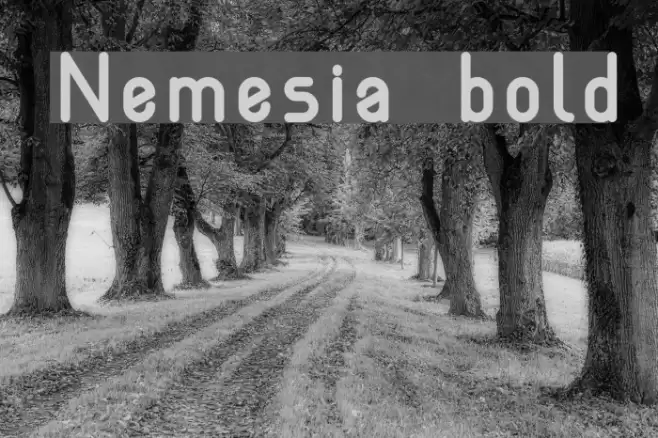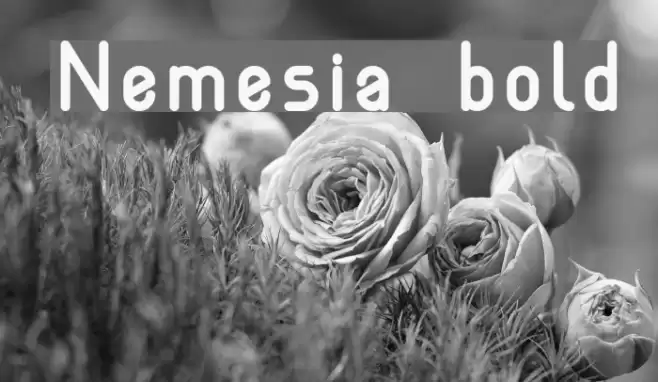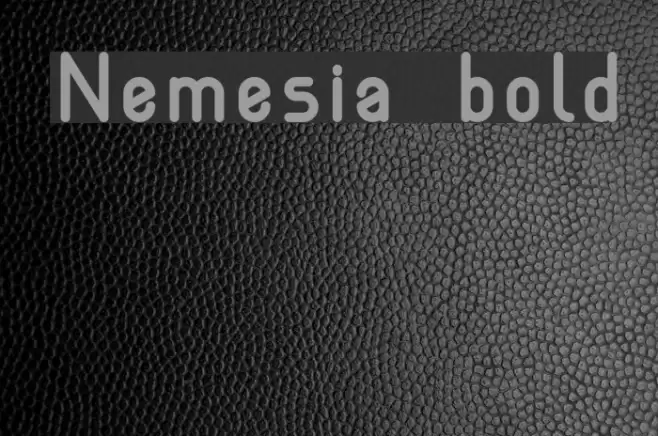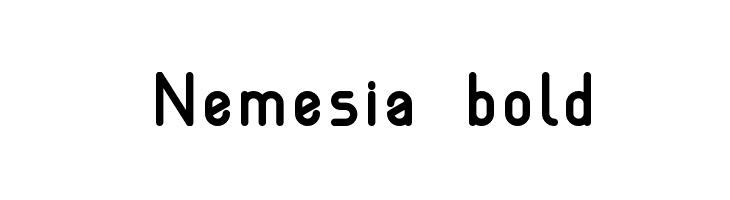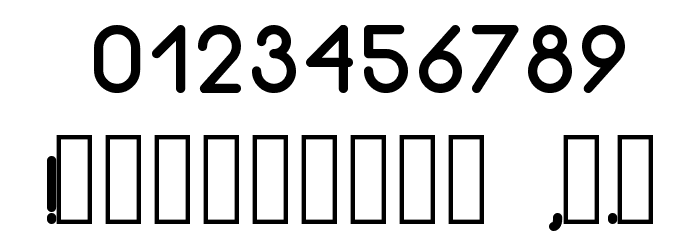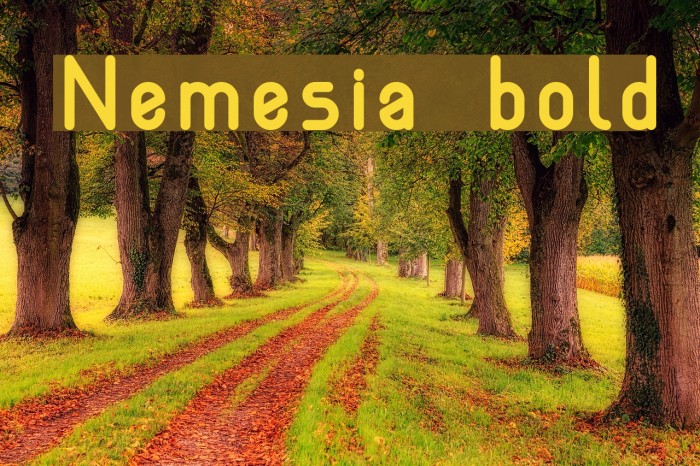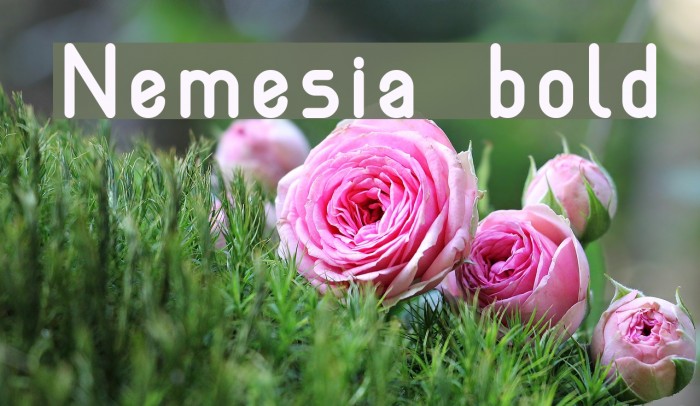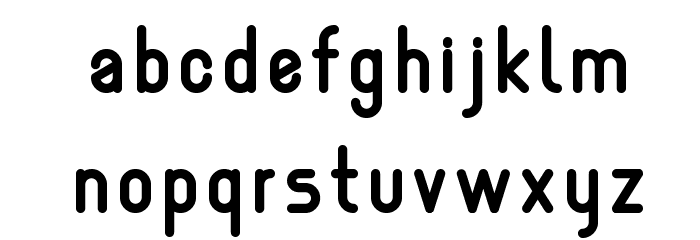
Nemesia bold Font
Nemesia bold Description
This font features a modern, rounded sans-serif style with clean lines and a bold presence. The characters are uniform in width, giving it a monospaced appearance, although it is not strictly monospaced. The uppercase letters are slightly taller than the lowercase, maintaining a consistent stroke width throughout. The numerals are clear and easy to read, matching the overall aesthetic of the alphabet. Special characters are designed with the same rounded edges, ensuring a cohesive look across all glyphs. This font is versatile, suitable for both digital and print media, offering a contemporary feel that is both approachable and professional.
A modern, bold, rounded sans-serif font with uniform character width from Uncategorized fonts.
- Proposed Projects: Ideal for tech branding, user interfaces, signage, and modern advertising.
- Use Case: Headlines, Logos, User Interfaces